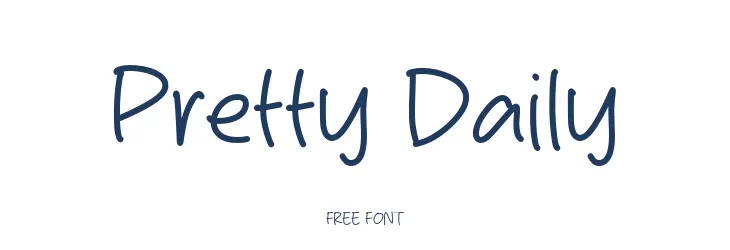
A sophisticated serif font with high contrast and elegant details.
A dynamic, expressive handwritten script font with fluid, connected strokes.
A dynamic and expressive handwritten script with fluid, cursive strokes.
An elegant and fluid script font with graceful strokes and a dynamic appearance.
A modern, geometric sans-serif font with smooth, rounded edges.
A bold, modern sans-serif font with clean, rounded edges and uniform stroke width.
A bold, italic font with smooth curves and a modern, dynamic style.
A sleek, modern italic font with smooth curves and consistent stroke width.
A sleek, modern font with clean lines and a minimalist aesthetic.
A sleek, modern, and light italic font with elegant elongated characters.
An artistic serif font with unique, irregular strokes and elegant flair.
A distinctive font with a hand-drawn, elegant style and slight serifs.
A classic, elegant script font with flowing cursive letterforms.
A playful, handwritten font with tall, narrow letters and uneven strokes.
A delicate, flowing script font with elegant, thin strokes.
A playful, handwritten script font with a smooth, cursive flow.
A playful, pirate-themed decorative font with a hand-drawn appearance.
A bold, condensed font with a modern, geometric style.
A dynamic and flowing script font with elegant, fluid strokes.
A bold, expressive script font with dynamic, flowing strokes.
A graceful and elegant script font with flowing, cursive letterforms.
A flowing, cursive font with elegant, interconnected characters.
A bold, handwritten font with rounded strokes and a playful style.
A playful, handwritten font with smooth, flowing curves and a casual style.
A playful, whimsical script font with a handwritten style.
A bold, playful handwritten font with expressive strokes and a brush-like texture.
A playful, bold script font with a handwritten style.
A playful and whimsical script font with elegant, flowing curls and loops.